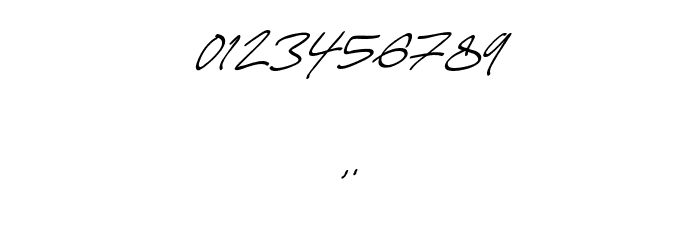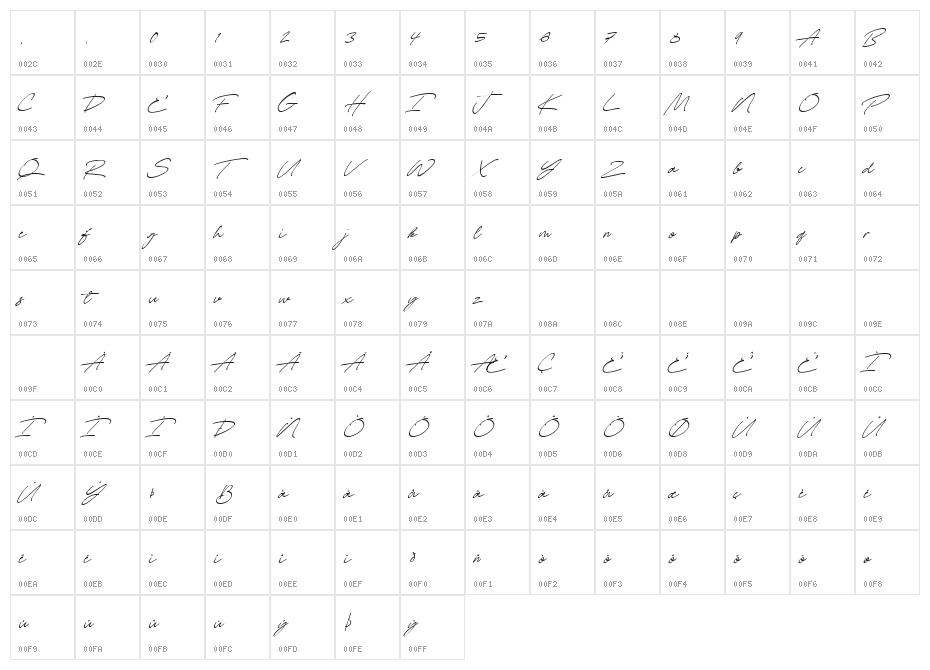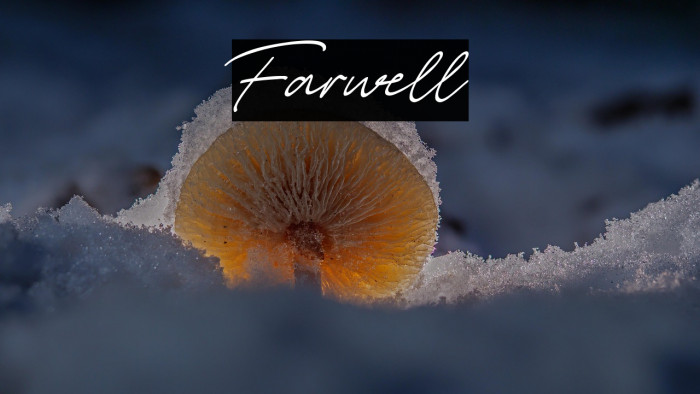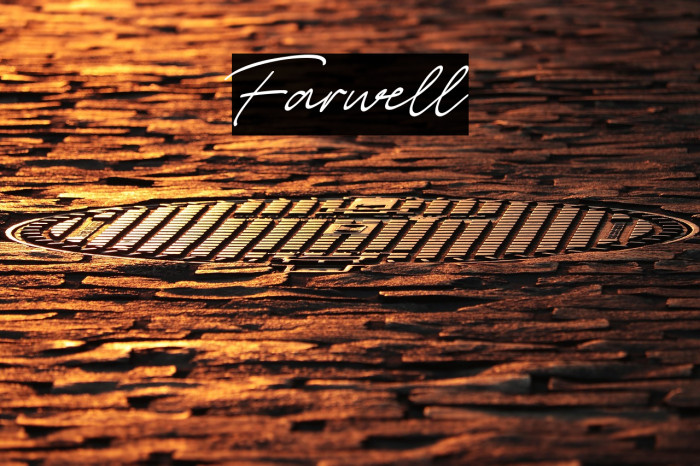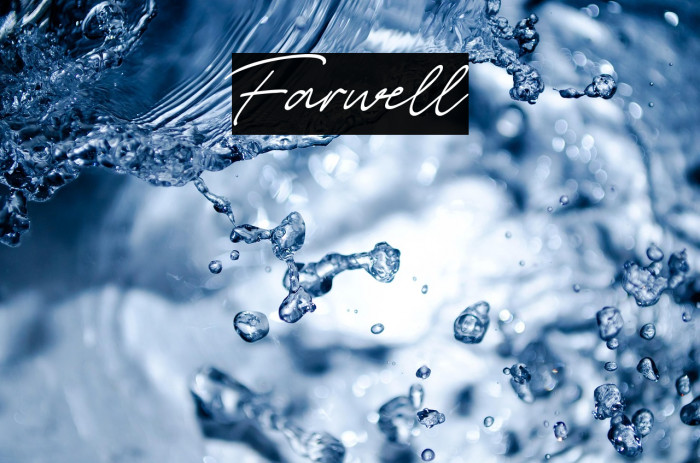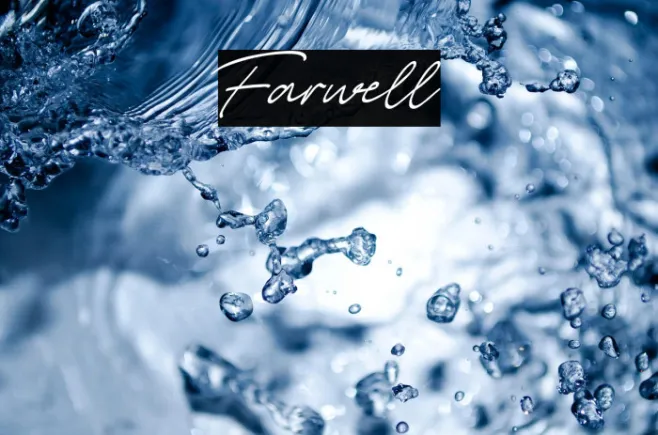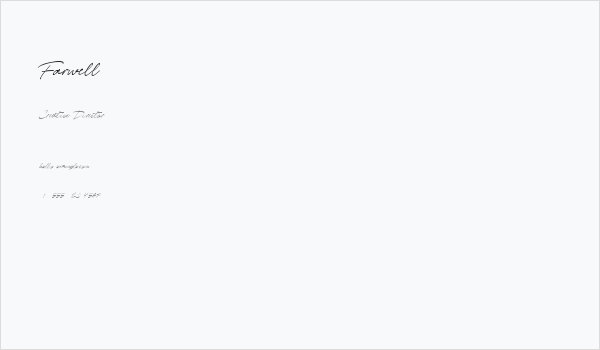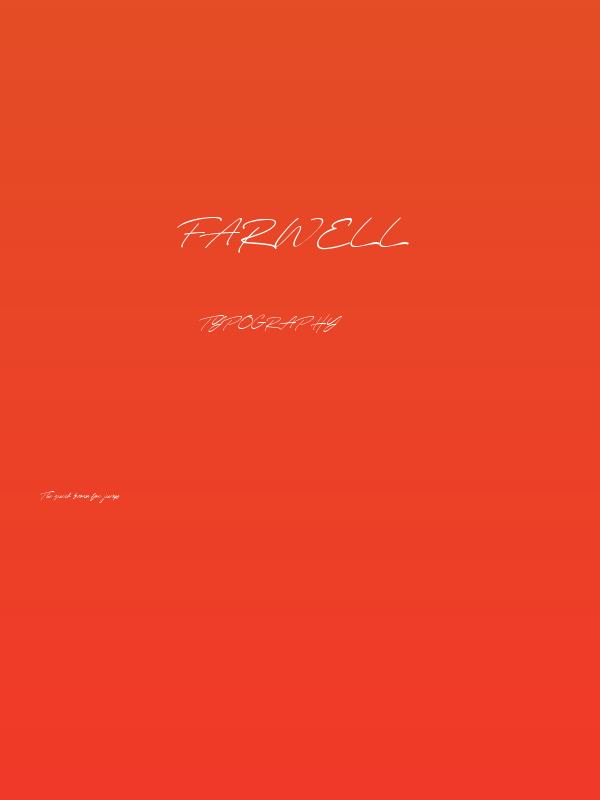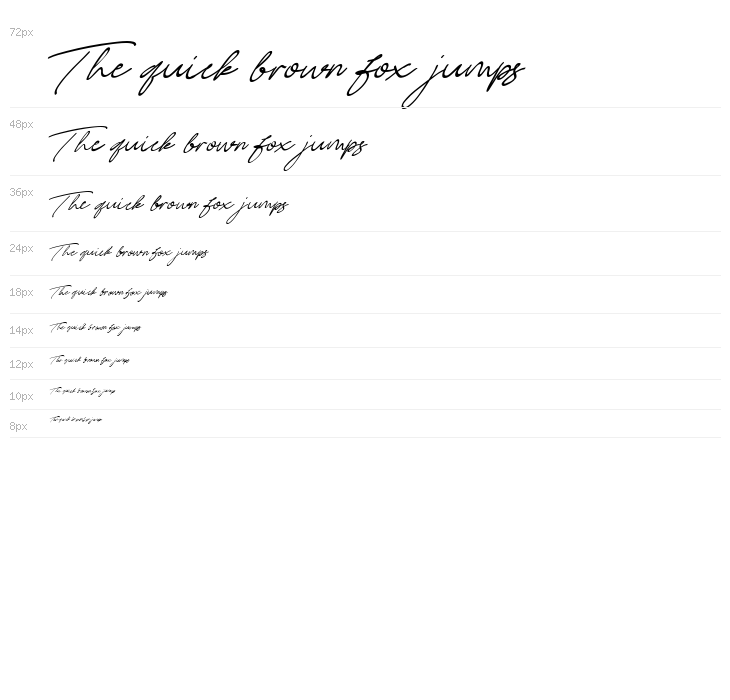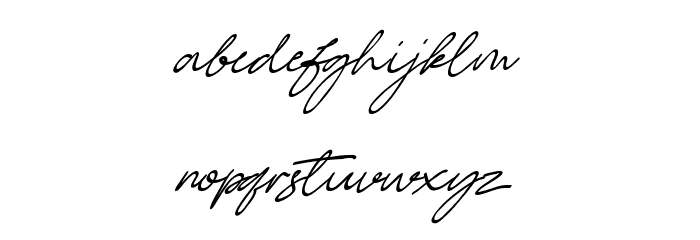
Farwell Font
Farwell Description
This elegant script font features a fluid and graceful style, reminiscent of traditional cursive handwriting. The letters are connected with smooth, flowing strokes, giving it a natural and organic appearance. The uppercase letters are slightly larger and more elaborate, while the lowercase letters maintain a consistent rhythm and balance. The numbers and special characters are designed to complement the overall aesthetic, ensuring a cohesive look across all text. This font exudes sophistication and charm, making it ideal for projects that require a personal touch.